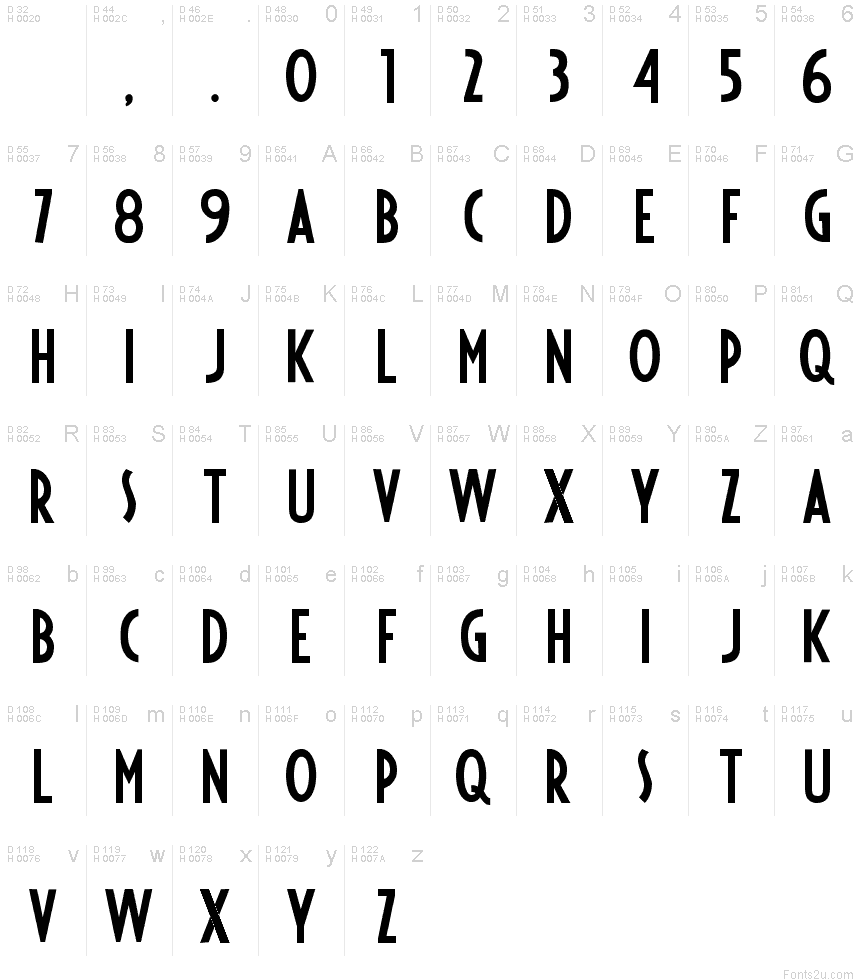
Fiesta
Fiesta font by Czcionki.com is a free modern display typeface. Its tall, condensed letters stack up like bold columns, then suddenly twist into a sinuous curve that feels like a ribbon caught mid-dance. Heavy black strokes, tight spacing, and that unexpected wobble give it a punchy, nightlife energy that grabs attention from across the room.
Using Fiesta, headlines snap with a kinetic, party-ready vibe that works beautifully for event posters, club flyers, cocktail bar menus, bold packaging, and playful logos or wordmarks. This free font shines when you set it big and let those verticals dominate; pair it with a clean, unobtrusive sans serif for body text so the dramatic shapes stay in the spotlight.